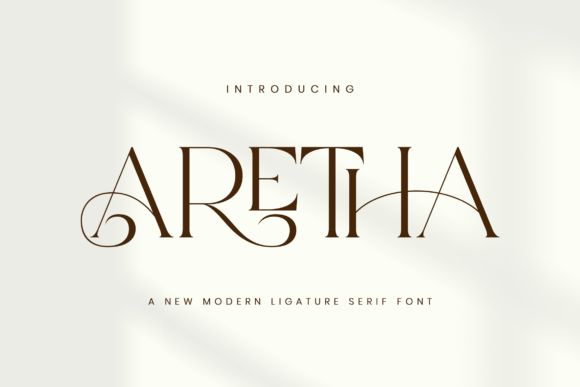
The Ultimate Font for High-Fashion Storytelling: Aretha Font
I’ll never forget the time I was working on a luxury fashion brand project, and my client asked me to create a logo that exuded high-end elegance. I scoured the internet for the perfect font, but nothing seemed to fit the bill. That was until I stumbled upon Aretha, a modern ligature serif font that masterfully weaves together the art of high-fashion storytelling. In this article, I’ll dive into the world of Aretha, sharing my honest review, practical tips on how to use it, and some amazing alternatives to explore.
What Makes Aretha Font So Special?
Aretha is more than just a font – it’s an experience. Its razor-sharp serifs are contrasted with lyrical, sweeping ligatures that connect characters like fine jewelry. This sophisticated rhythm, paired with a generous x-height, gives Aretha a sense of timeless luxury, making it a true “hero” typeface for the fashion and beauty industries.
My Honest Review of Aretha Font
So, what do I love about Aretha? Here are a few things that make it stand out:
- ✨ Stunning ligatures: The way Aretha connects characters is truly breathtaking. It’s like a work of art!
- ✅ Elegant serifs: The sharp serifs add a touch of sophistication and glamour to any design.
- 💃 Timeless luxury feel: Aretha has a certain je ne sais quoi that screams high-end fashion and beauty.
Of course, no font is perfect, and Aretha has a few quirks:
- 🤔 Limited use in body text: Aretha is best suited for headlines and titles. Its elegant serifs and ligatures might get lost in body text.
The Story Behind Aretha Font
Aretha was designed with the fashion and beauty industries in mind. Its creator wanted to craft a font that would evoke the luxury and sophistication of high-end brands. Inspired by the elegance of fine jewelry and the art of storytelling, Aretha was born.
| Font Name | Aretha Font |
| Author | Aqeel_Art |
| What is Aretha font best used for? | Aretha font is best used for high-fashion logos, upscale magazine headers, boutique branding, and luxury wedding stationery. |
| Does Aretha support OpenType features? | Yes, Aretha supports OpenType features, including ligatures and stylistic alternates. |